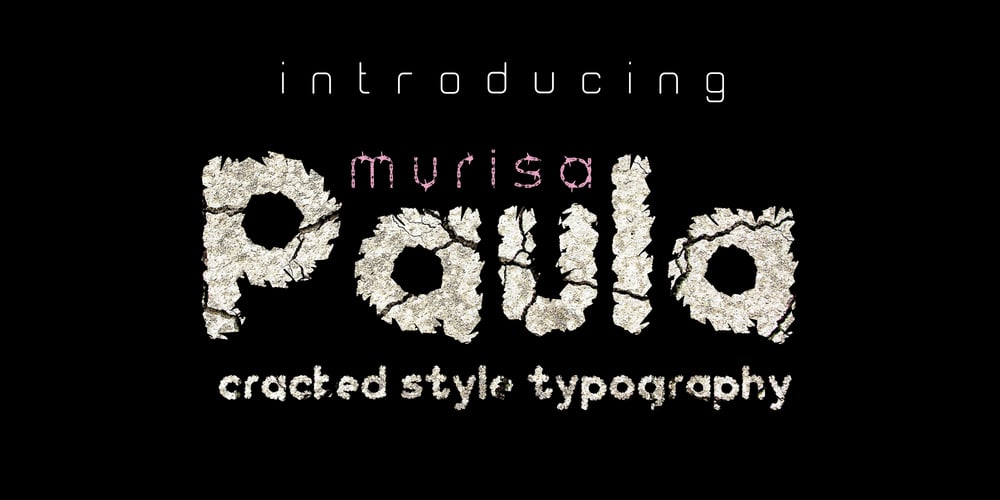
Murisa Paula Font Family was designed by Lili and published by Murisa Studio. Murisa Paula contains 2 styles and family package options. Do you want a unique and attractive display font?. Murisa Paula is the answer. This very attractive font will make you happy and excited. It has a unique shape with the edges of the letters torn to shreds, like torn paper. This type of lettering will make it easier for you to design a display product with a cracked effect or something else. Get it now.